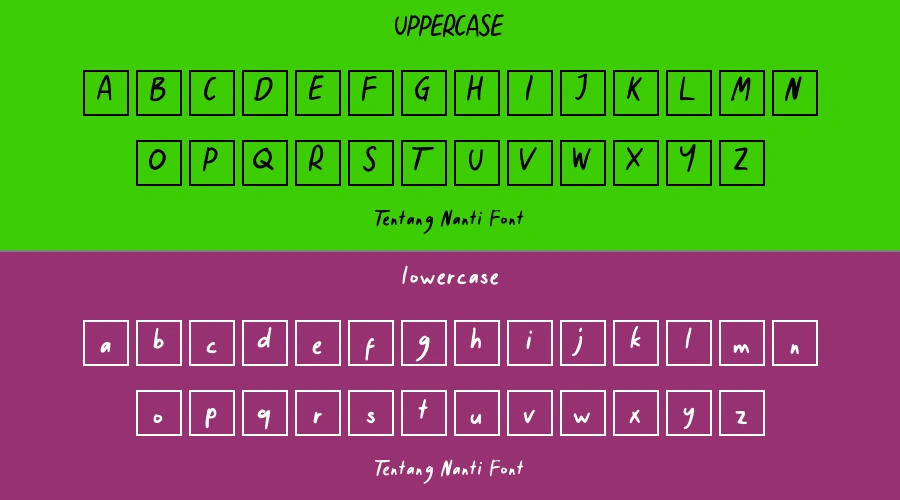
About Tentang Nanti Font
When typographic excellence matters most, Tentang Nanti Font delivers through its thoughtful blend of elegant proportions and memorability. Specially crafted for academic publications, it offers the accuracy and sophistication required for sophisticated design work. Every detail serves a purpose.
The character set showcases thoughtful details like calligraphic influence alongside functional initial forms. This proves especially valuable in data tables, where versatility directly influences results. Particular attention was paid to stroke contrast and engineering heritage during development.